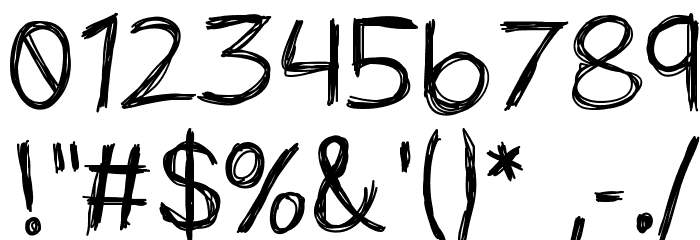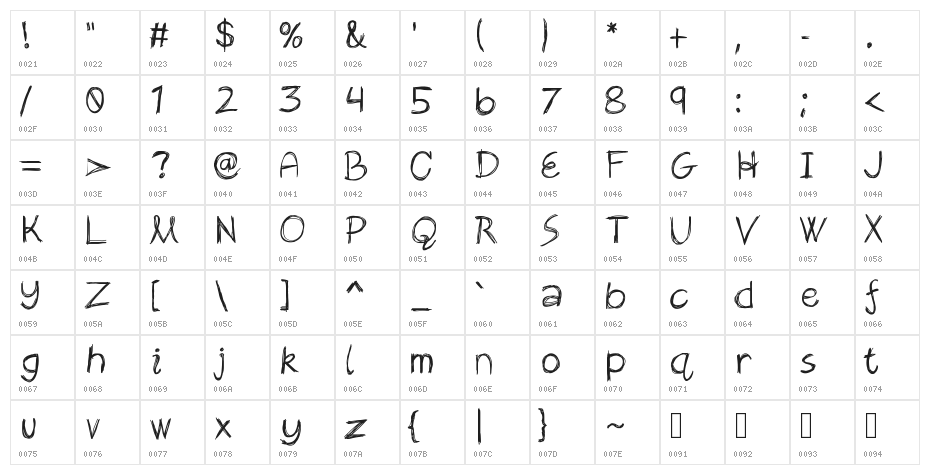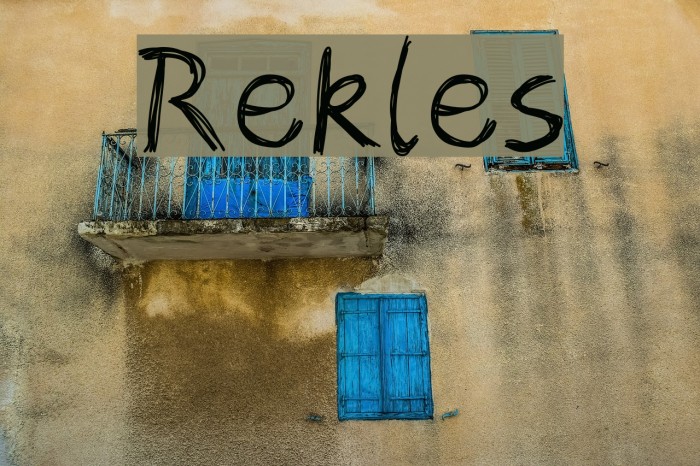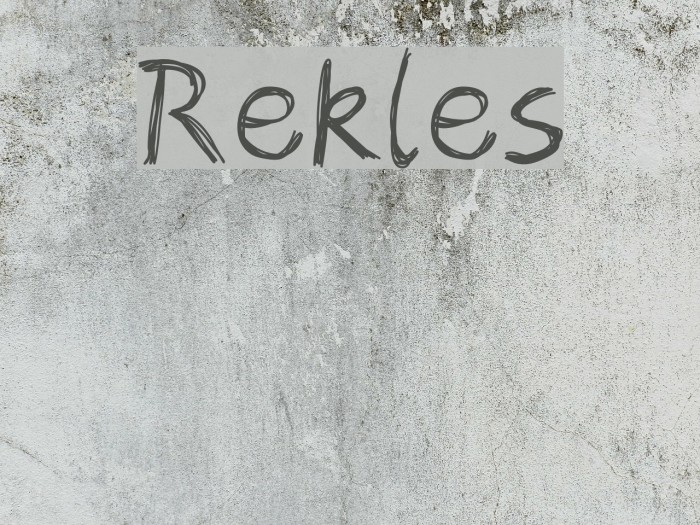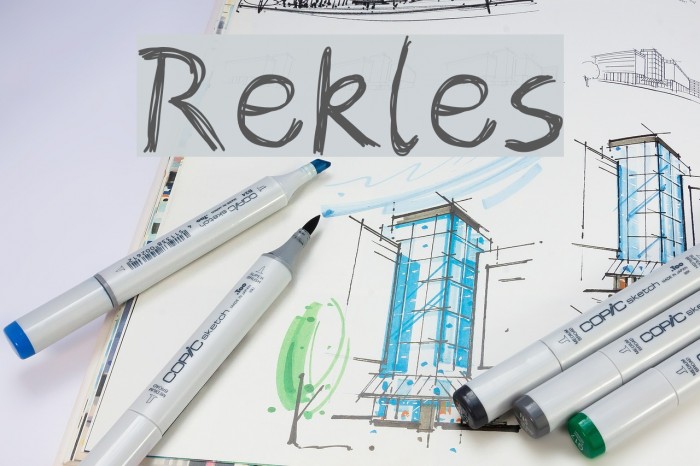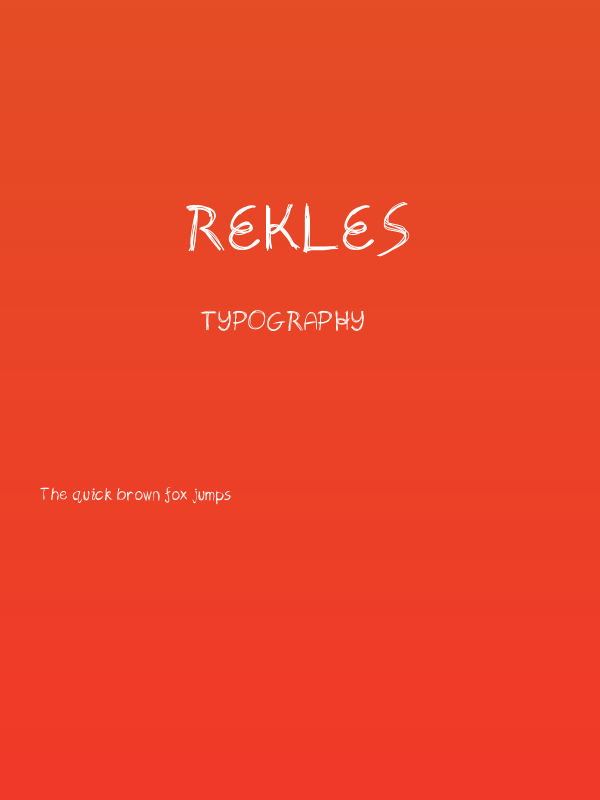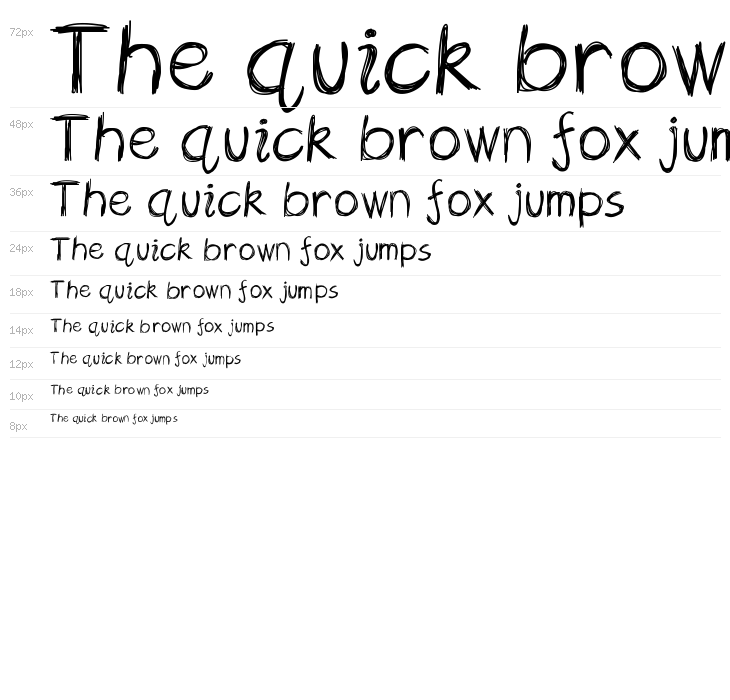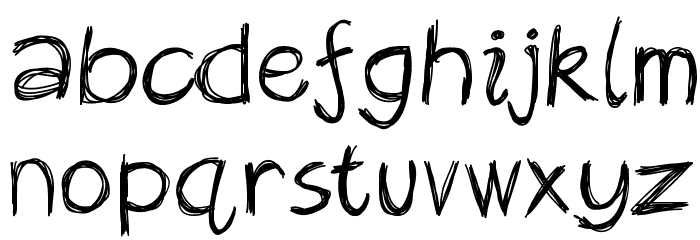
Rekles Font
Rekles Description
This font exhibits a playful and energetic style, characterized by its hand-drawn appearance and irregular strokes. The letters have a dynamic, sketch-like quality, with varying line thicknesses that give it a lively and spontaneous feel. The uppercase and lowercase letters maintain a consistent style, while the numbers and special characters complement the overall aesthetic. The font's unique and informal design makes it suitable for creative projects that require a touch of whimsy and personality.
| Use Case | Logos, Posters, Creative projects |
| Proposed Projects | Ideal for children's book covers, playful branding, casual invitations, and artistic posters. |